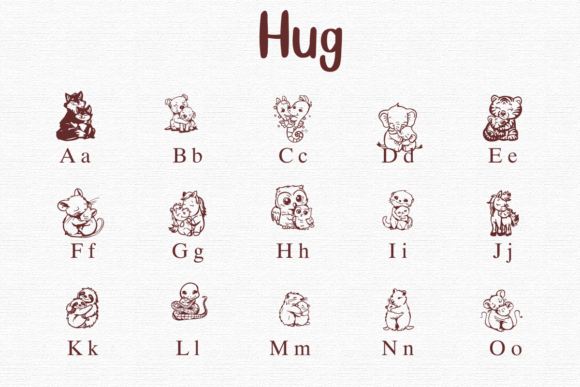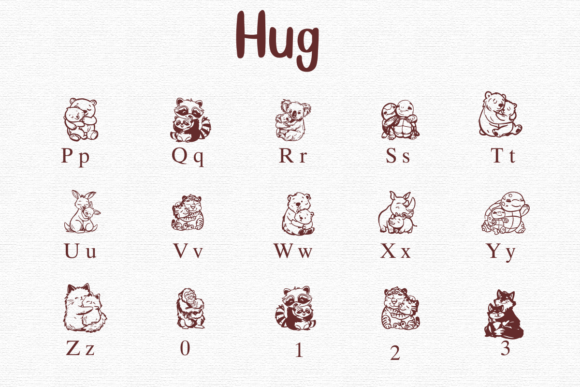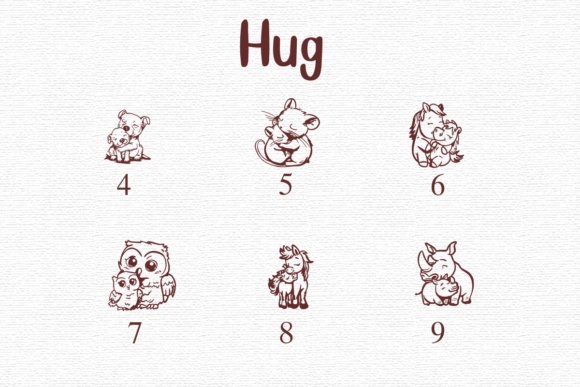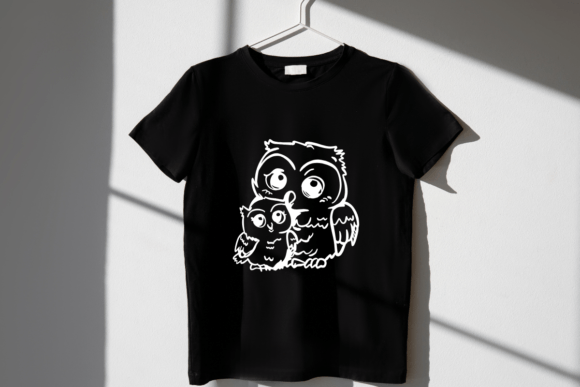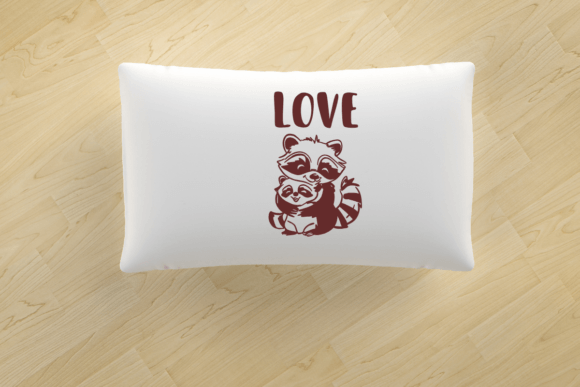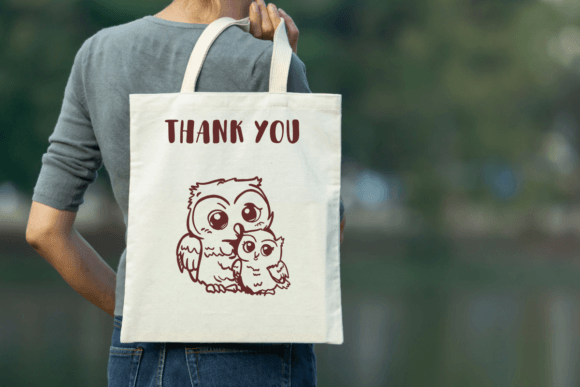
Introduction to Hug Font
As a designer, there’s no shortage of moments when you’re stuck on a project and need a little spark of inspiration. For me, it’s often when I’m brainstorming ideas for a children’s book or a social media campaign for a family-friendly brand. That’s when I turn to my trusty design resources, and one of my go-to’s is the Hug Font – a delightful collection of adorable animals embracing each other in hugs.
This playful font is more than just a design element – it’s a way to infuse your project with warmth, sweetness, and a dash of cuteness. With its high-quality illustrations and transparent background, the Hug Font is a versatile design resource that can be used in a variety of creative projects, from greeting cards to website headers.
Key Features of Hug Font
- Features a transparent background, making it easy to integrate with various design elements
- Designed as a versatile design resource, suitable for a wide range of applications, including branding, advertising, and digital media
- Resolution-independent, ensuring crisp and clear display across various devices and resolutions
- Comes in a single font size, making it easy to scale and adjust to fit your design needs
- Perfect for designers looking for a unique and creative way to add personality to their projects
Honest Review: Hug Font
One of the standout features of the Hug Font is its transparent background, which makes it incredibly versatile for use on various design elements.
- ✨ Transparent background for versatile use
- ⚠️ Limited character set, which may not be suitable for extended text-based projects
- ⚠️ May not be as effective for large-scale design elements
Overall, I’m impressed with the Hug Font. While it may have some limitations, it’s a great design resource for those looking to add a unique touch to their creative project. If you’re looking for a high-quality, free font with a transparent background, the Hug Font is definitely worth checking out.
Hug Font
Hug Font is a high-quality design resource that’s perfect for any creative project. It’s available for free download with a transparent background, making it easy to use in a variety of applications.
Tips for Getting the Most Out of Hug Font
To get the most out of Hug Font, be sure to use it in conjunction with other design elements, such as images and graphics. You can also experiment with different font sizes and colors to create a unique look.
Hug Font is perfect for any creative project, including social media graphics, presentations, and documents. It’s also great for use in branding and marketing materials, such as business cards and brochures.
Yes, the Hug Font is designed to work well on transparent backgrounds. Since it has a transparent background, you can easily combine it with other design elements and images without worrying about any unwanted backgrounds.